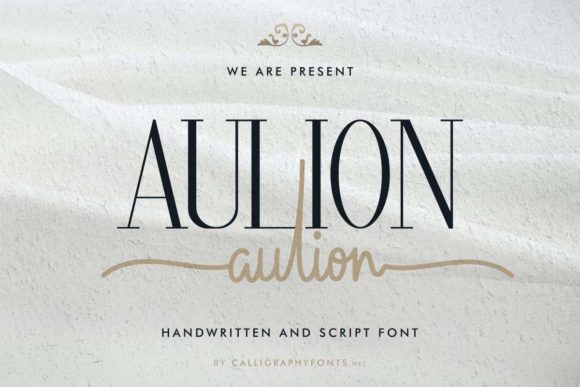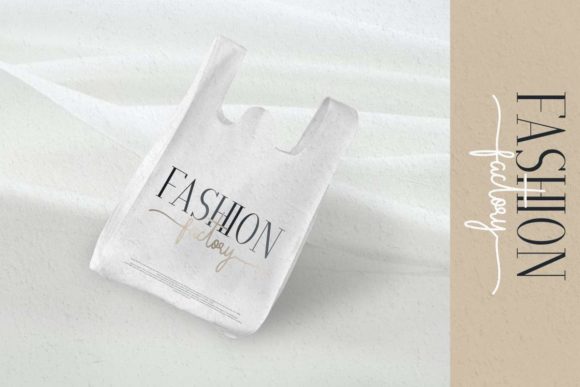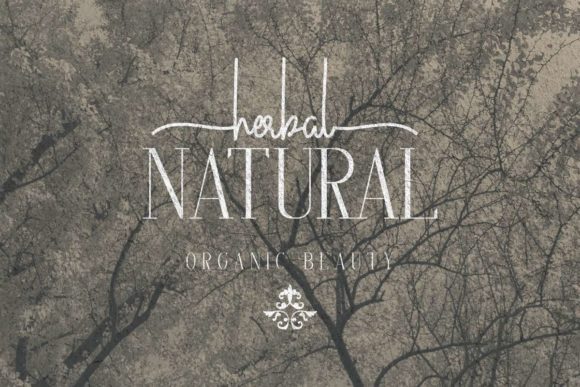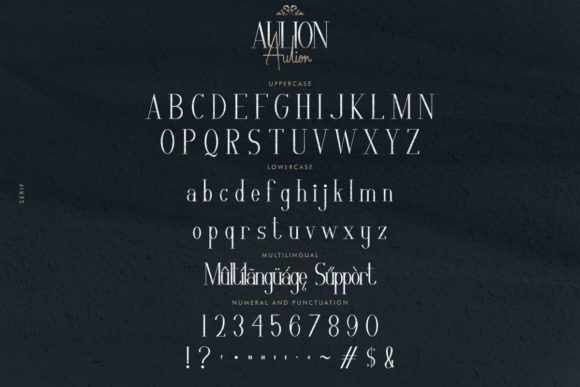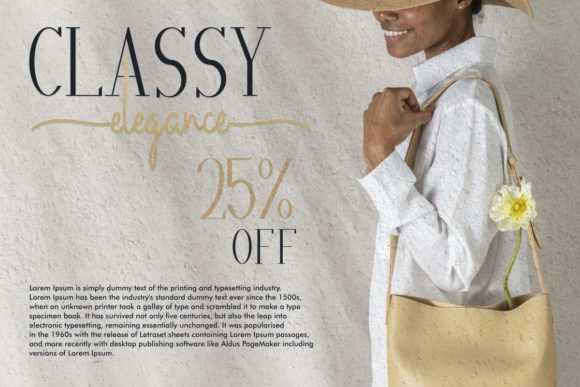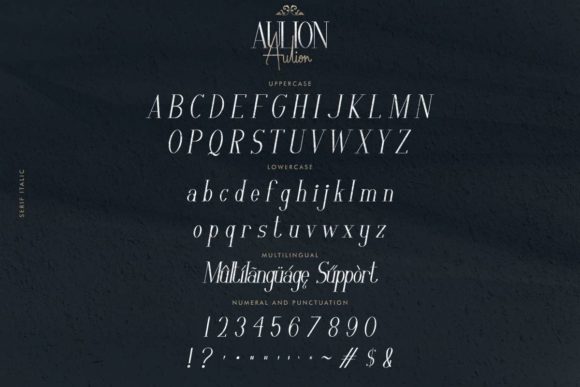
Aulion Font: Elevate Your Designs with Elegance and Versatility
Are you tired of using the same old fonts in your designs? Look no further than Aulion Font, a stunning duo font that combines the sophistication of serif and the charm of handwritten styles. Aulion is a game-changer for designers and crafters, offering a level of versatility that can elevate any project to new heights.
The Perfect Combination: Serif and Handwritten
Aulion Font is a unique duo font that pairs a beautiful serif font with a gorgeous handwritten font. The serif font exudes elegance and sophistication, while the handwritten font adds a touch of warmth and personality. This combination allows you to create a wide range of designs, from formal and luxurious to playful and whimsical.
Unleash Your Creativity with Aulion
One of the standout features of Aulion Font is its incredible versatility. Whether you’re working on a branding project, a wedding invitation, or a social media graphic, Aulion can help you create something truly special. The font’s elegant and refined aesthetic makes it perfect for:
Why Choose Aulion Font?
So, what sets Aulion Font apart from other fonts on the market? Here are just a few reasons why designers and crafters love Aulion:
- Unique and eye-catching: Aulion’s distinctive duo font style is sure to grab attention and make your designs stand out.
- Elegant and sophisticated: Aulion’s serif font is perfect for creating luxurious and high-end designs.
- Playful and charming: Aulion’s handwritten font adds a touch of warmth and personality to any design.
- Highly versatile: Aulion can be used for a wide range of projects and designs.
Tips for Using Aulion Font
To get the most out of Aulion Font, here are a few tips to keep in mind:
- Mix and match: Experiment with pairing Aulion’s serif and handwritten fonts to create unique and interesting combinations.
- Play with sizes: Use different font sizes to create visual hierarchy and add emphasis to your designs.
- Add embellishments: Consider adding embellishments, such as flourishes or ornaments, to give your designs an extra touch of elegance.
Aulion Font is a beautiful and glamorous duo font that can elevate any design to new heights. With its unique combination of serif and handwritten styles, Aulion offers a level of versatility and elegance that’s hard to find in other fonts. Whether you’re a designer, crafter, or DIY enthusiast, Aulion is a must-have font that can help you create stunning and effective designs. So why wait? Add Aulion to your font collection today and start creating something truly special!